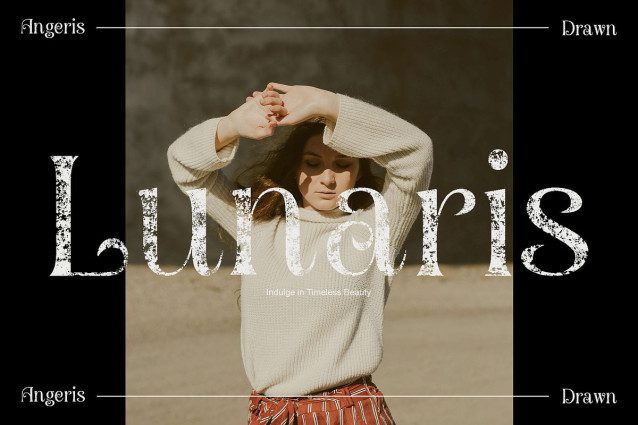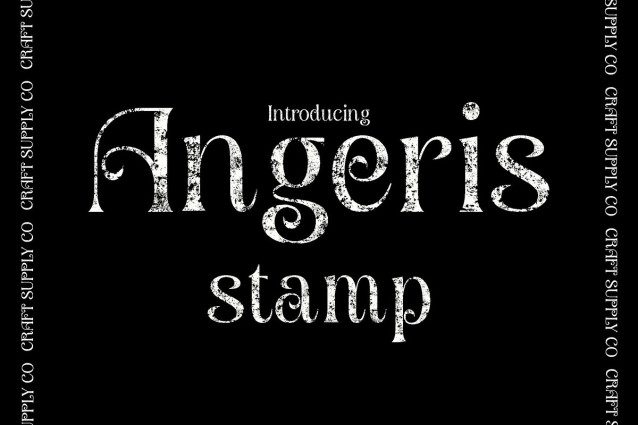
Angeris Stamp Font
Angeris Stamp Font – Elegant Serif Font with Stamp Effect: Where Art Nouveau Meets Vintage Grace Flowing Art Nouveau Elegance This is an Art Nouveau serif font defined by its organic curves and graceful structure. Each letter flows naturally with artistic rhythm, evoking the beauty and sophistication of early 20th-century design while maintaining a modern sense of refinement.
Stamp Texture for Vintage Enchantment The stamp effect enhances this font’s decorative charm, adding depth, texture, and a touch of nostalgia. This handcrafted imperfection gives the typeface a vintage allure, making it feel both timeless and alive perfect for designs that seek to blend artistry with authenticity.
A Touch of Magic and Whimsy Inspired by fairy-tale elegance and natural forms, this font brings a sense of wonder and creativity to any project. Its flowing serifs and ornamental details make it ideal for romantic branding, dreamy posters, or elegant packaging.
Perfect Harmony of Beauty and Expression This font captures the essence of artistic sophistication and vintage warmth. Whether for editorials, branding, or decorative displays, it transforms typography into a visual experience of grace, imagination, and timeless style.